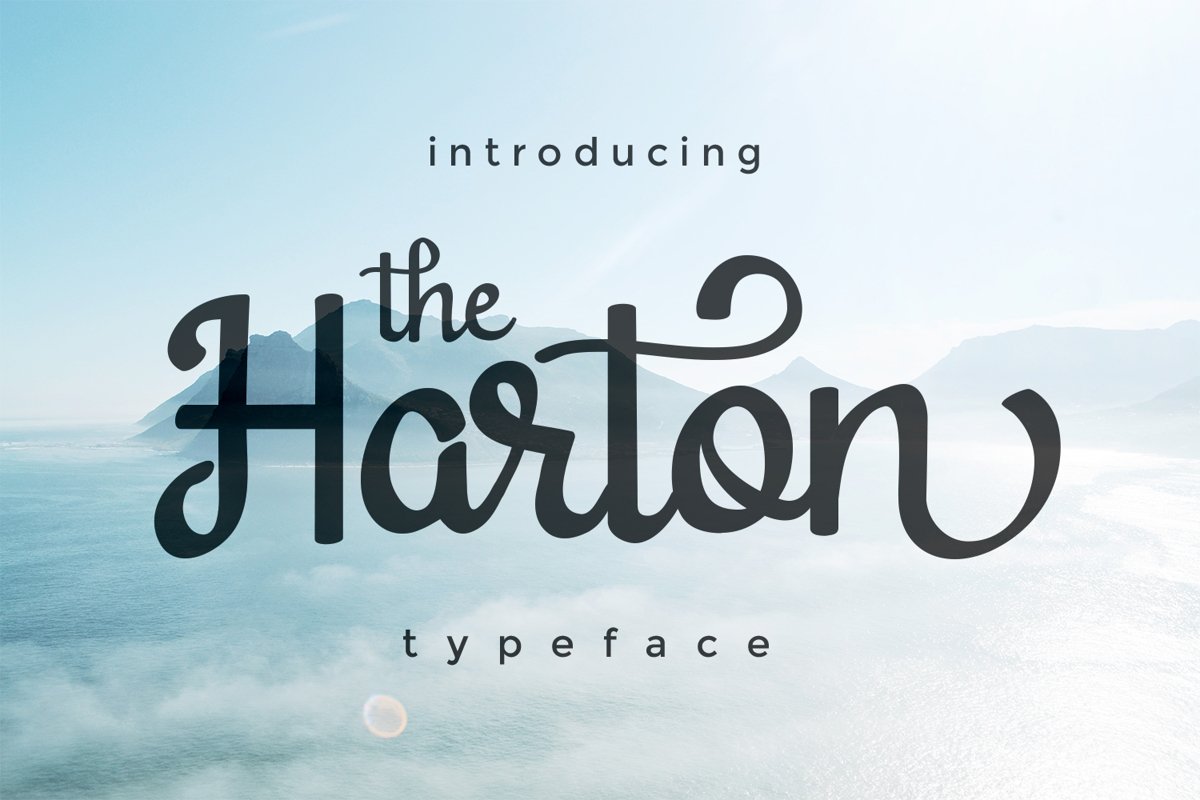
Harton
Harton is beautiful  font inspired from handwritten style. This font suitable for any design purpose such as headings, logos, wedding invitation, news, poster, quote design, letterhead etc.
Harton font has some alternate characters, including initial and terminal letters, stylistic alternate, ligatures and multiple language. This font is PUA encoded, so you can easily add alternate character to your designs.